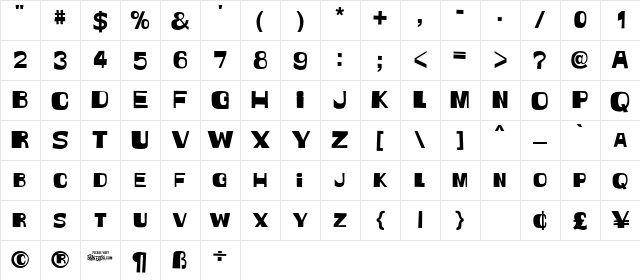
Witless Regular Free Font
Witless Regular
Witless Family
Witless Regular
Design Context for Witless
Witless is a composed and adaptable typeface that performs quietly and consistently across a wide range of design contexts.